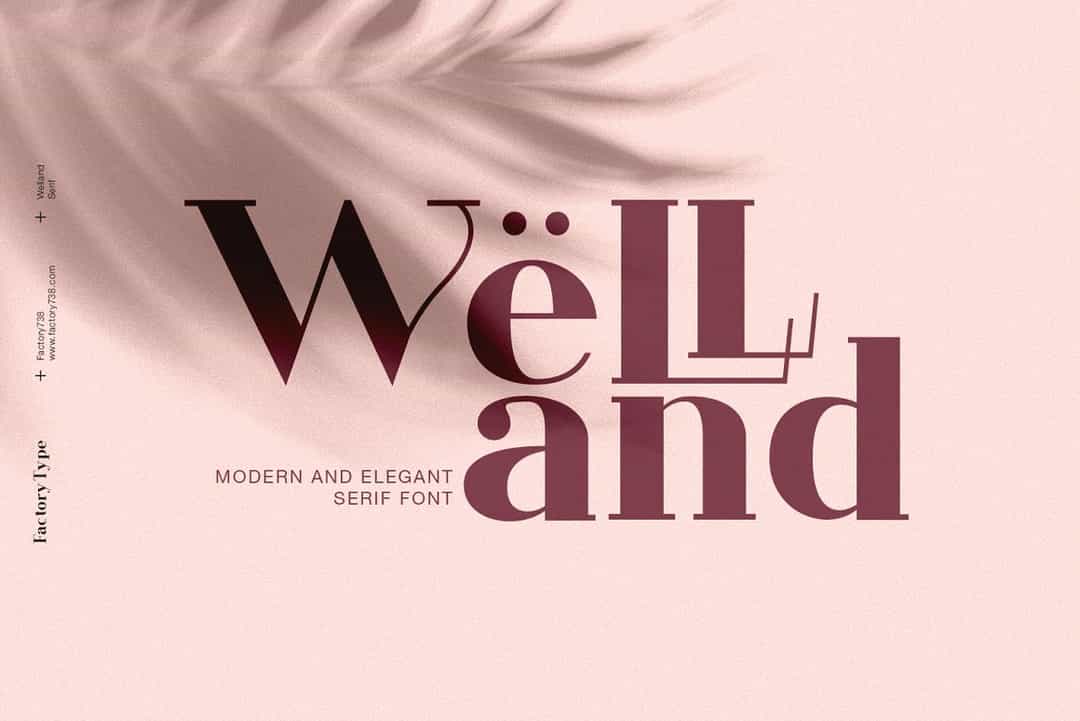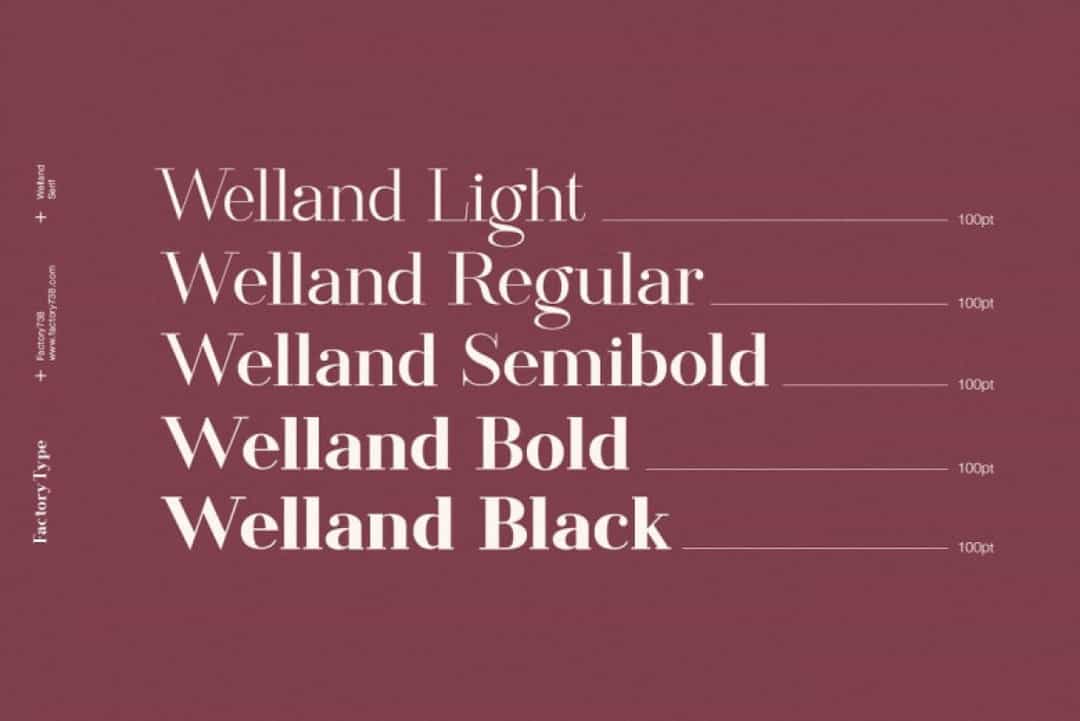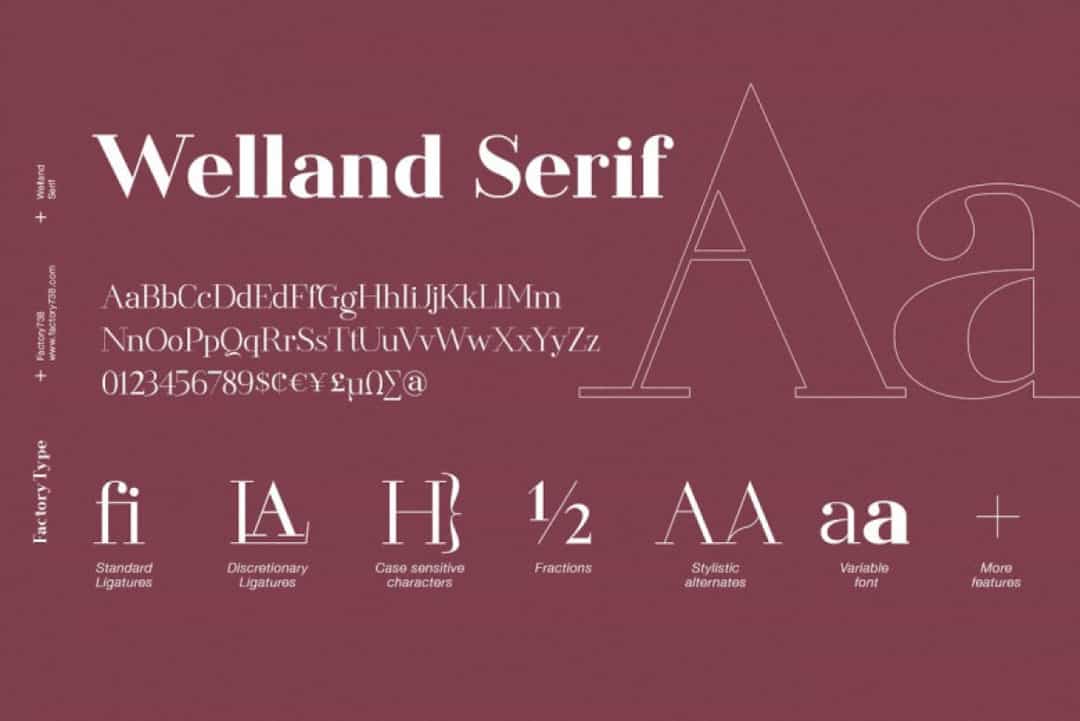
Welland is an elegant yet contemporary Serif font family, boasting vintage and modern elements for an attractive appearance. Offering multiple weight options to accommodate different designs, Welland’s collection provides the ideal color choices to meet the design goals of its users.